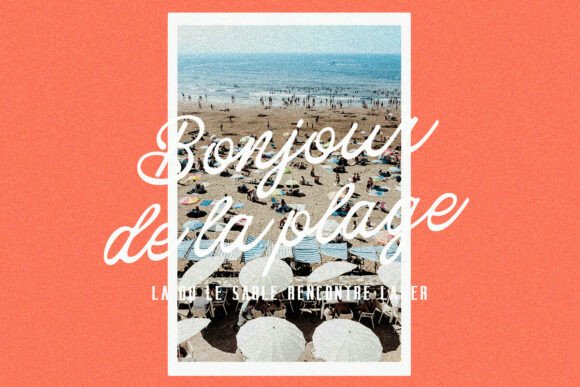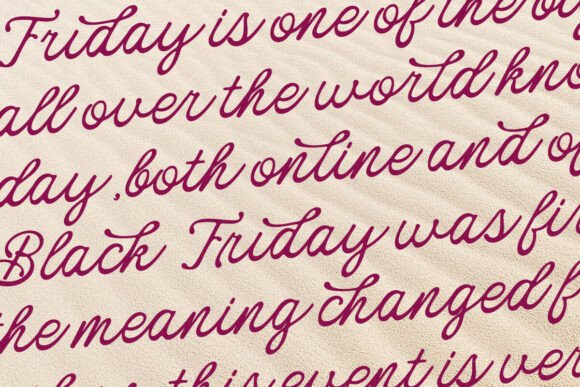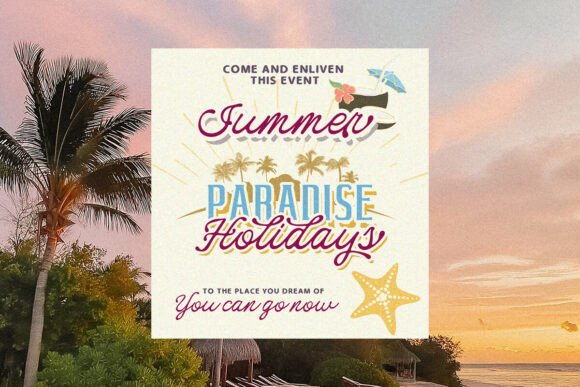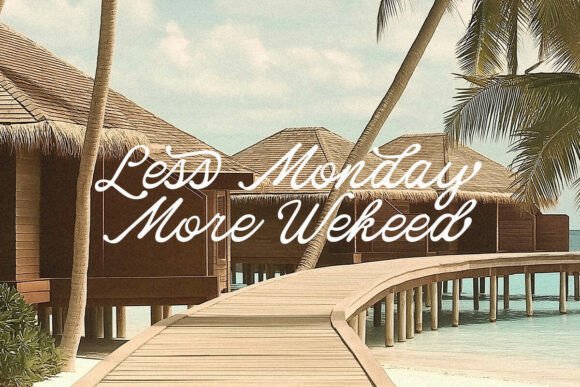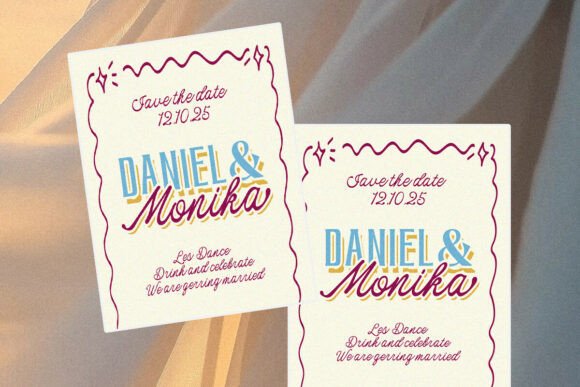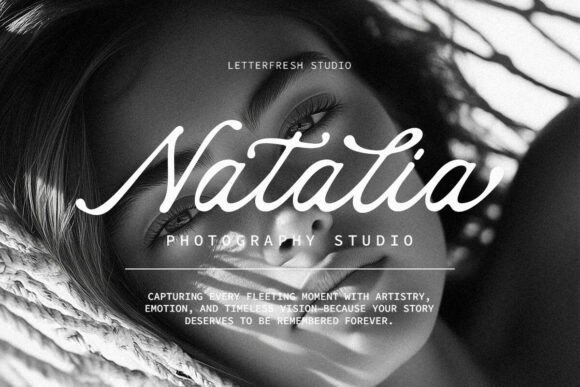
Introducing Friday Edition Duo Font: The Perfect Blend of Bold and Friendly
Are you tired of using the same old fonts for your design projects? Look no further! Friday Edition Duo Font is here to revolutionize your typography game. This sweet and gentle font duo combines a bold, rounded serif font with a flowing handwritten script, creating a playful and perfect balance between bold and friendly.
What Makes Friday Edition Duo Font Special?
Friday Edition Duo Font is not just any ordinary font duo. Its unique combination of a bold, rounded serif font and a flowing handwritten script makes it stand out from the rest. The bold font is perfect for making a statement, while the handwritten script adds a touch of elegance and sophistication. This duo is versatile and can be used for a wide range of design projects, including product labels, greeting cards, social media posts, branding projects, logo designs, packaging, quotes, and more.
Friday Edition Duo Font is a dream come true for designers and crafters. Whether you’re creating a brand identity, designing a product label, or crafting a social media post, this font duo has got you covered. The bold font is perfect for headlines, titles, and emphasis, while the handwritten script is ideal for body text, descriptions, and quotes.
Key Features of Friday Edition Duo Font
- Bold and Rounded Serif Font: The bold font features a unique rounded serif design that’s perfect for making a statement.
- Flowing Handwritten Script: The handwritten script is elegant, sophisticated, and adds a touch of personality to your designs.
- Playful and Friendly: The combination of the bold and handwritten fonts creates a playful and friendly vibe that’s perfect for a wide range of design projects.
- Versatile: Friday Edition Duo Font can be used for product labels, greeting cards, social media posts, branding projects, logo designs, packaging, quotes, and more.
How to Use Friday Edition Duo Font
- Pair the Bold Font with the Handwritten Script: Use the bold font for headlines and titles, and the handwritten script for body text and descriptions.
- Experiment with Different Sizes and Colors: Play around with different sizes and colors to create visual interest and hierarchy in your designs.
- Add a Personal Touch: Use the handwritten script to add a personal touch to your designs, such as in quotes, testimonials, or descriptions.
Benefits of Using Friday Edition Duo Font
- Stand Out from the Crowd: The unique combination of the bold and handwritten fonts will help your designs stand out from the crowd.
- Convey a Friendly and Approachable Tone: The playful and friendly vibe of Friday Edition Duo Font is perfect for conveying a friendly and approachable tone.
Friday Edition Duo Font is a game-changer for designers and crafters. Its unique combination of a bold, rounded serif font and a flowing handwritten script makes it perfect for a wide range of design projects. With its playful and friendly vibe, versatility, and ease of use, Friday Edition Duo Font is a must-have for anyone looking to elevate their typography game.